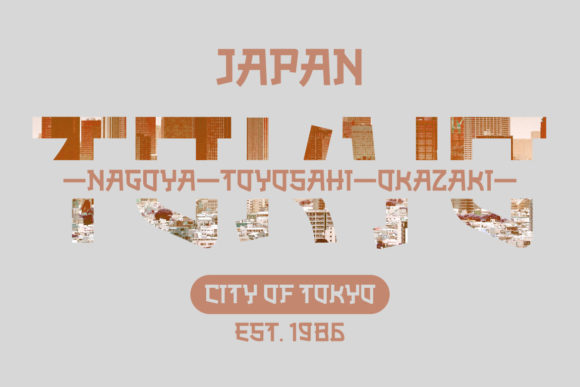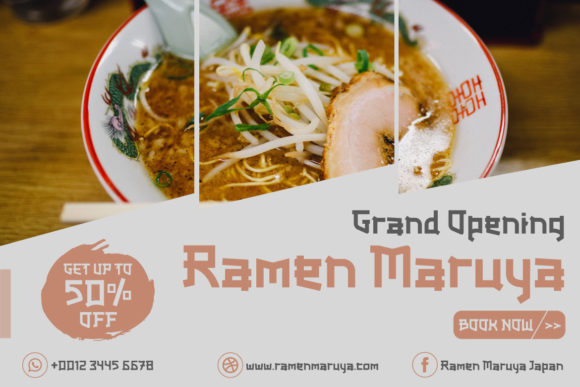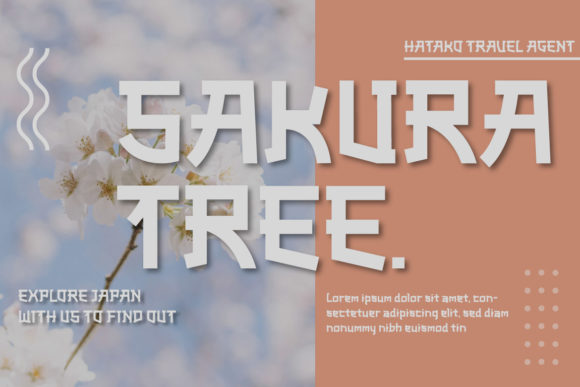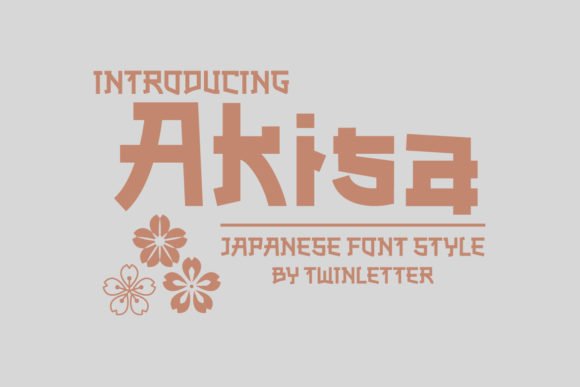
Introduction to Akisa Faux Japanese Font
Akisa is a faux Japanese display typeface featuring amusing characters that you may use for a variety of design projects.
You will create a project that is striking and memorable in the mind of the entire audience if you use this typeface Logotypes, food banners, branding, brochure, posters, movie titles, book titles, quotes, and more may all benefit from this font.
Akisa Faux Japanese Font offers exceptional quality and versatility, making it a valuable addition to your design toolkit. Whether you’re creating for personal projects or commercial use, Akisa Faux Japanese Font delivers professional results.